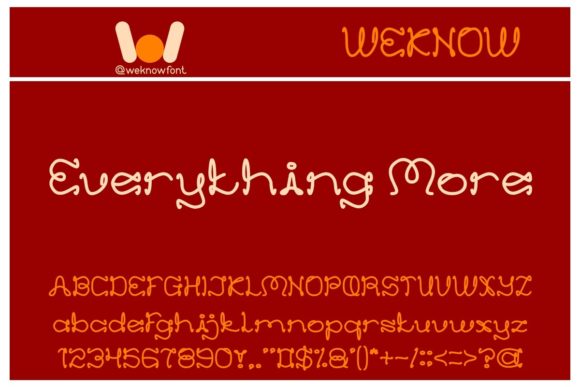
Introducing Everything More: a meticulously crafted script typeface that will paint a captivating tale in your creative ventures. Immerse yourself in its graceful curves and enchanting playfulness, where each stroke whispers of personality and charm.
Step into a world where your posters dance with allure, headlines captivate with undeniable charisma, and brands take flight with an unforgettable identity. Everything More is your muse, a font that ignites imagination and fuels expression with effortless style.
Whether you're a designer seeking to make a lasting impression or a blogger yearning for prose that resonates, Everything More stands as your ally, adding a touch of finesse to every word you craft. With its captivating appeal, this font breathes life into logos, logotypes, and corporate identities, leaving an imprint that speaks volumes.
Dive into the realm of creativity, where Everything More awaits to unveil the hidden beauty in your designs. It's the perfect companion for apparel that oozes casual elegance, posters that ignite emotions, and music covers that transport your listeners to new heights.
Unlock the boundless possibilities that reside within Everything More. Let your imagination soar as you create eye-catching YouTube thumbnails, captivating Instagram posts, and websites that radiate with an irresistible charm. In the world of fonts, Everything More is a masterpiece, a font that will elevate your artistic endeavors to new heights.
Don't let your creative fire dwindle; embrace the captivating allure of Everything More today. Let its enchantment inspire your designs, leaving a legacy of excellence in every stroke.